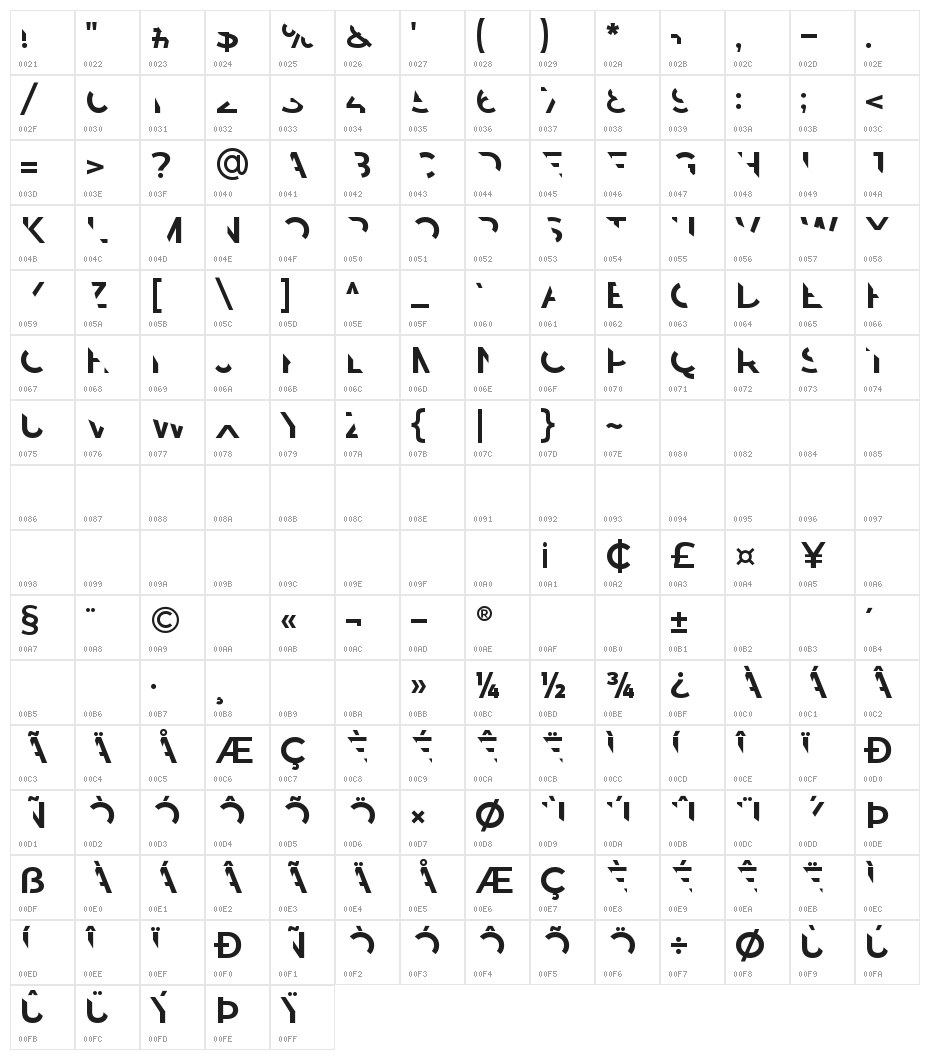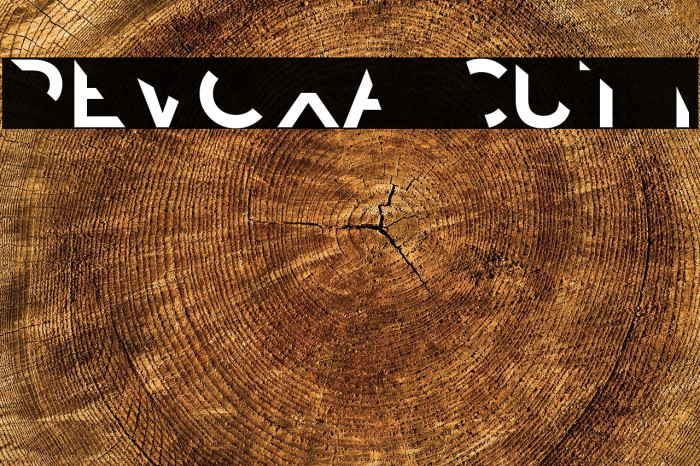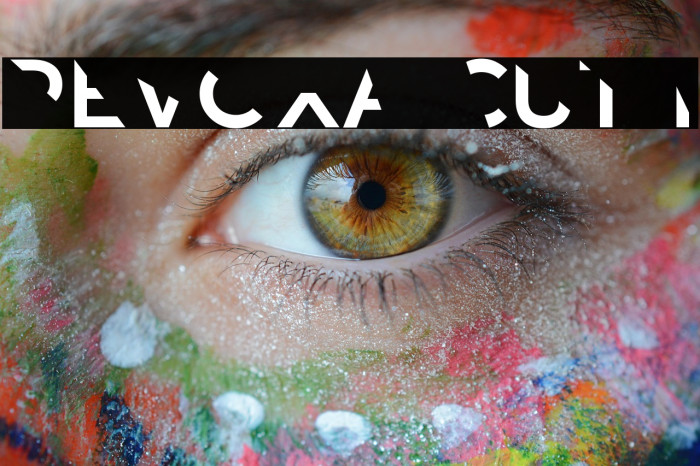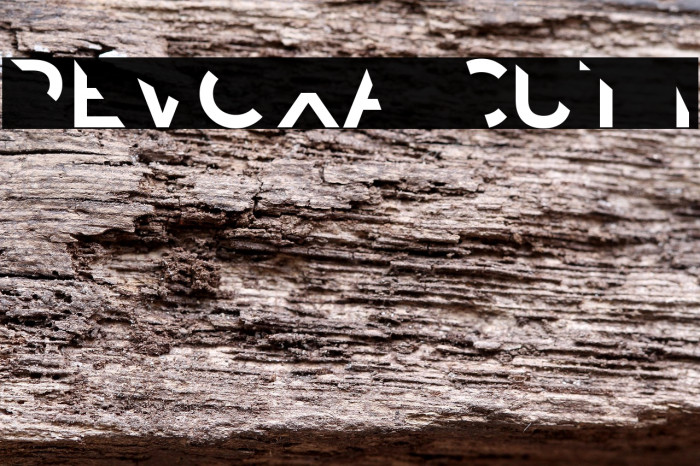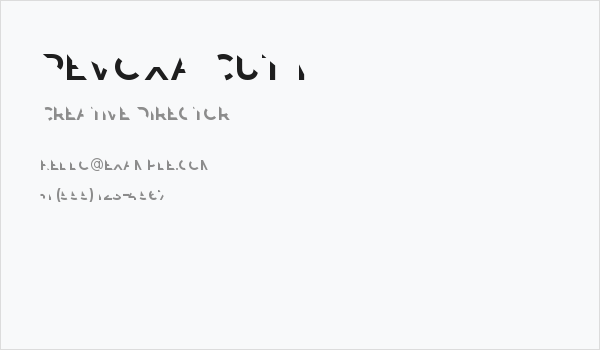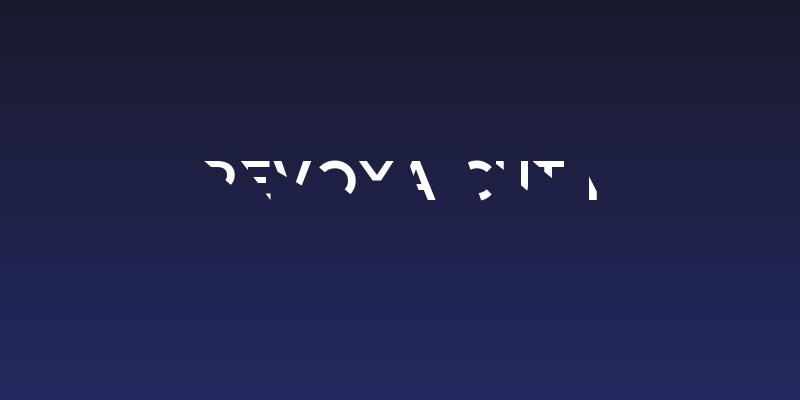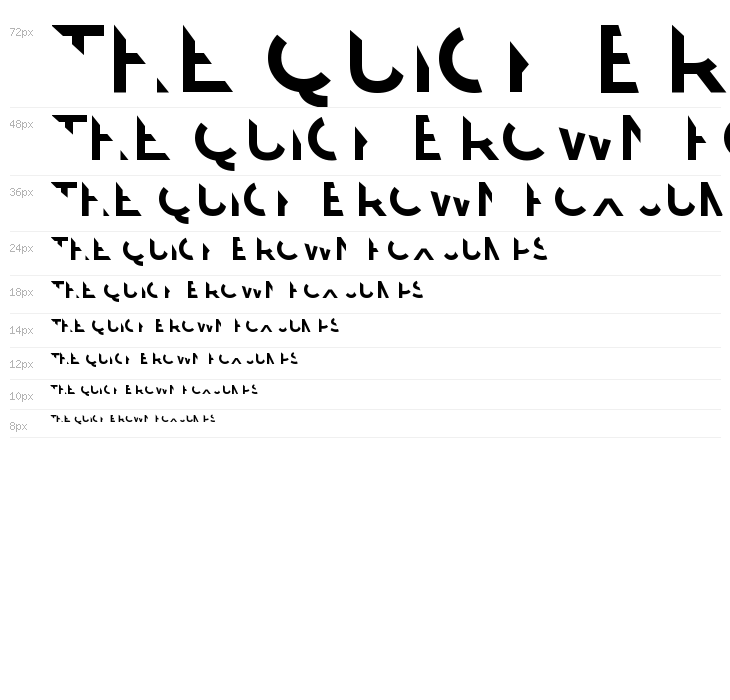
Revoxa Cut 1 Font
Revoxa Cut 1 Description
This font features a unique, modern design with a distinct cut-out style that gives each character a fragmented appearance. The geometric shapes and sharp angles create a futuristic and edgy look, making it stand out in any design. The uppercase and lowercase letters maintain a consistent style, with each character exhibiting a bold and assertive presence. The numbers and special characters follow the same design principles, ensuring a cohesive visual language throughout. The font's innovative approach to character design makes it ideal for projects that require a contemporary and unconventional aesthetic.
| Proposed Projects | Ideal for branding, posters, album covers, and any project seeking a futuristic and bold aesthetic. |